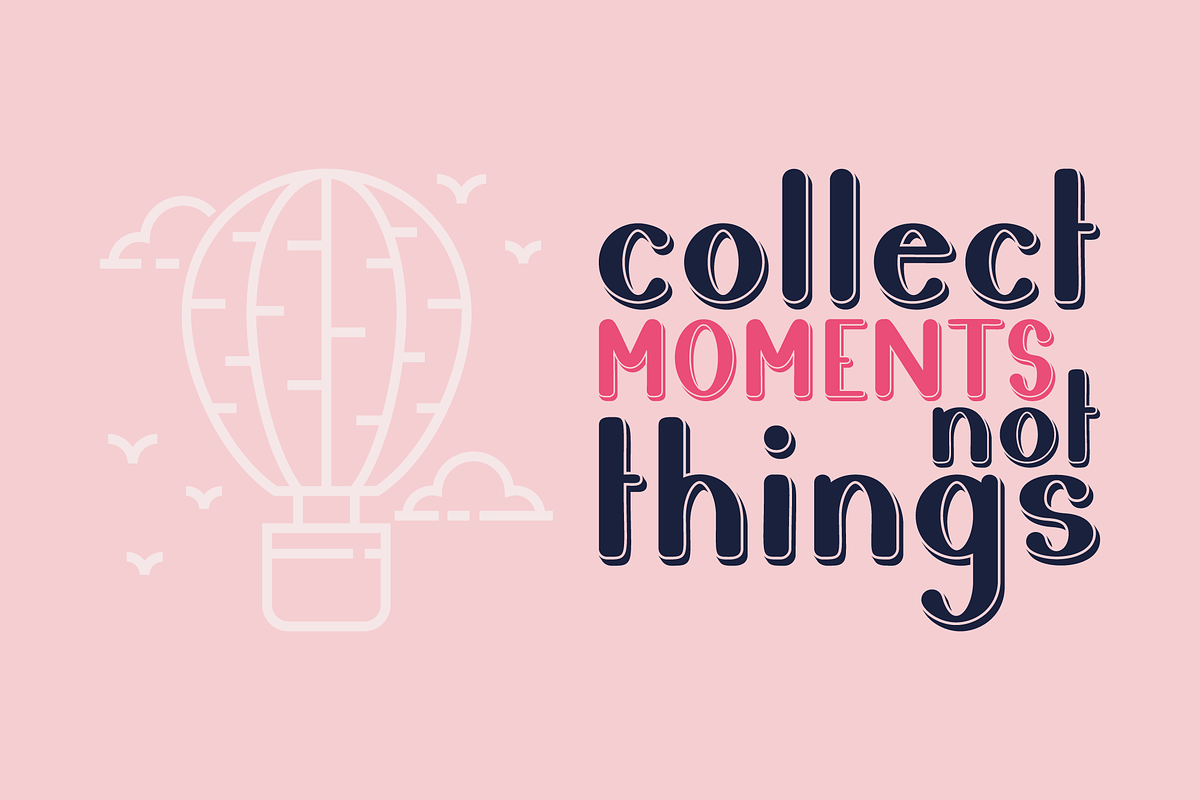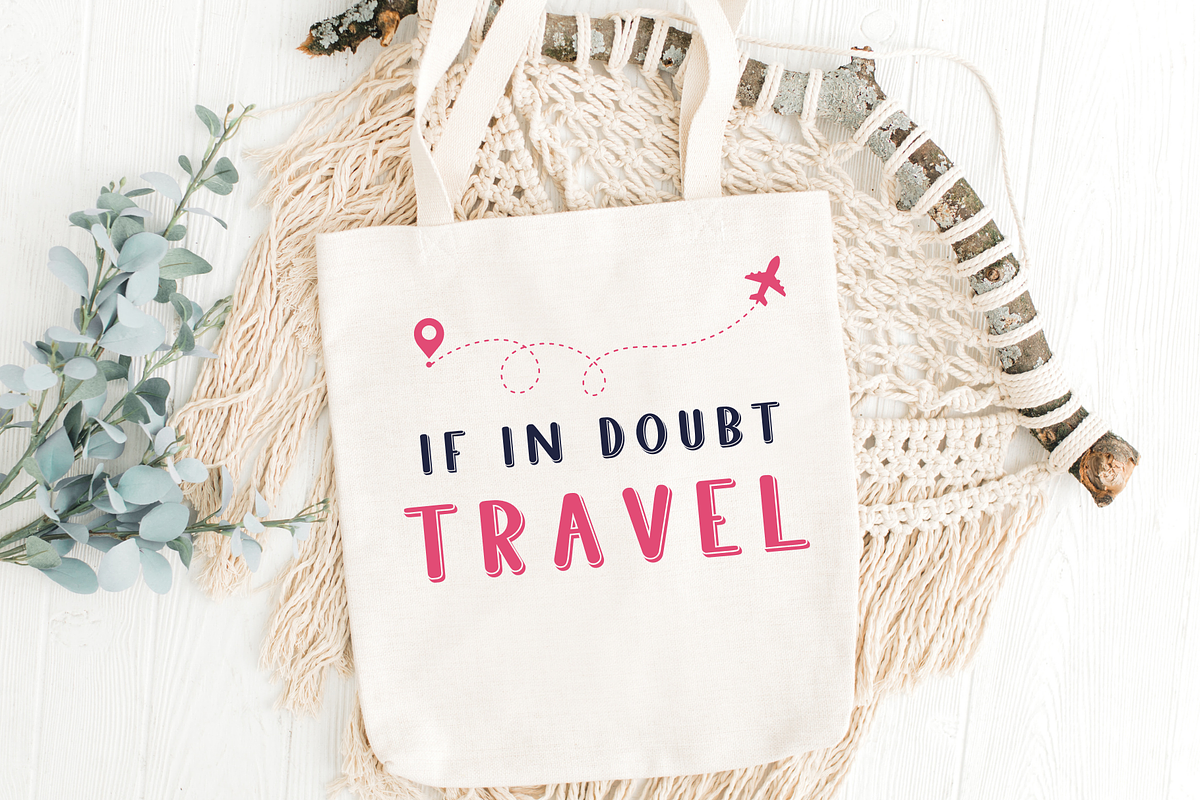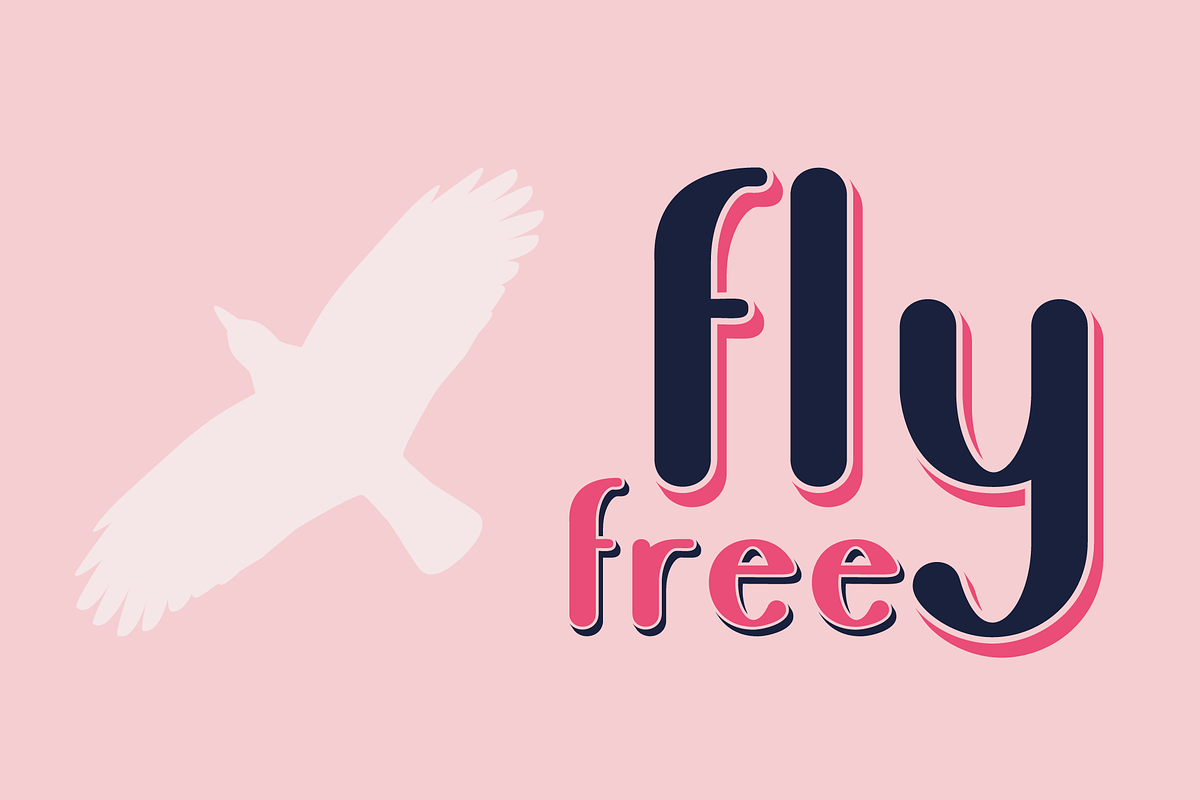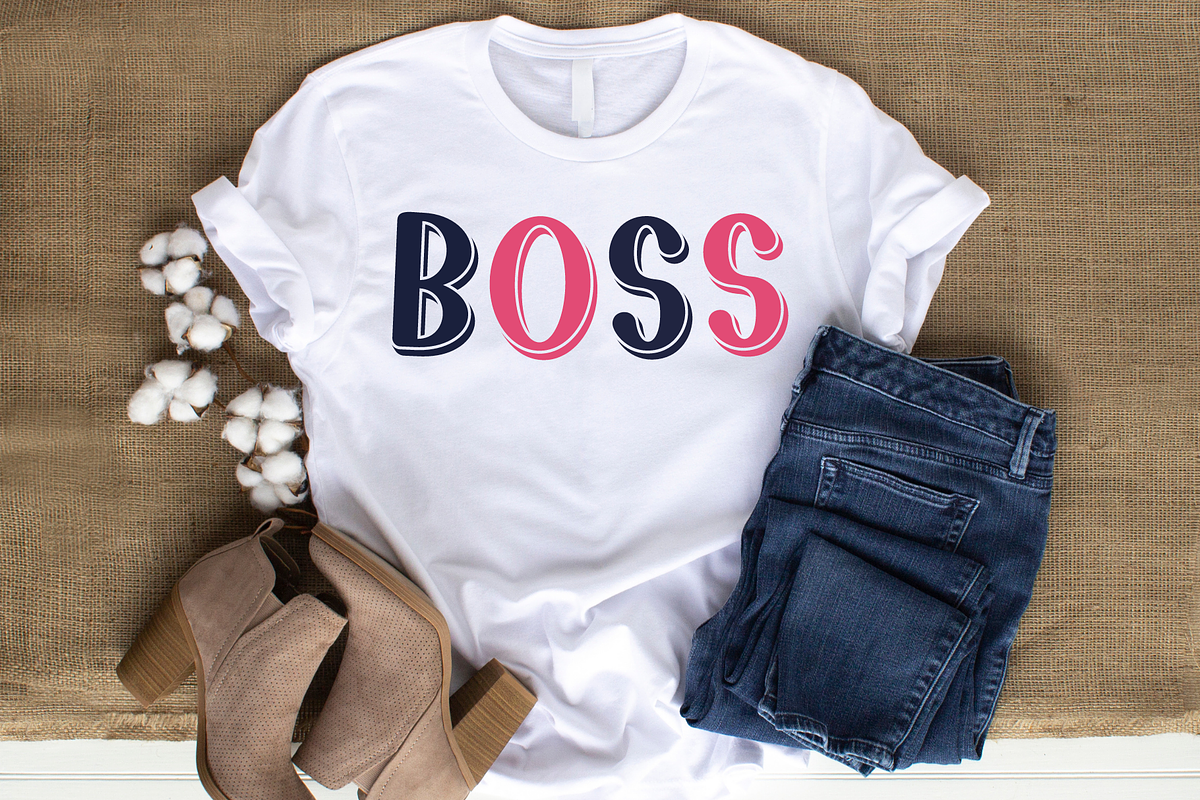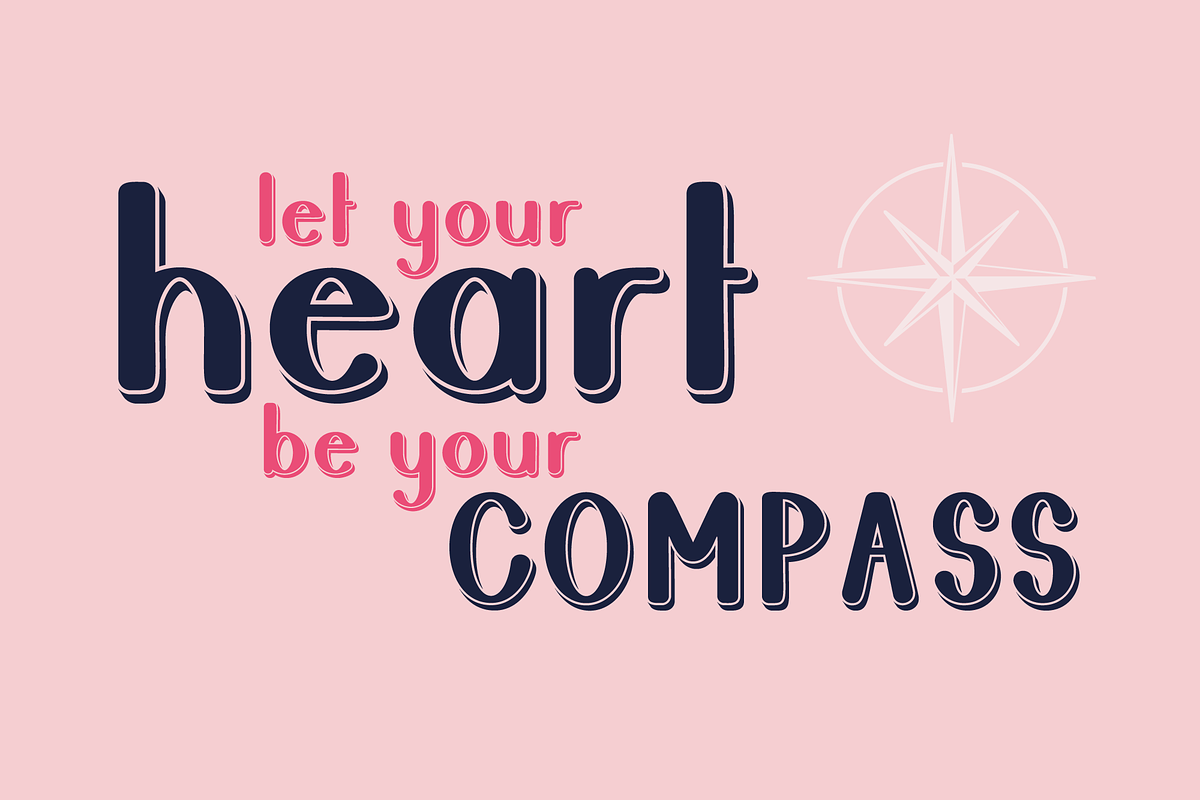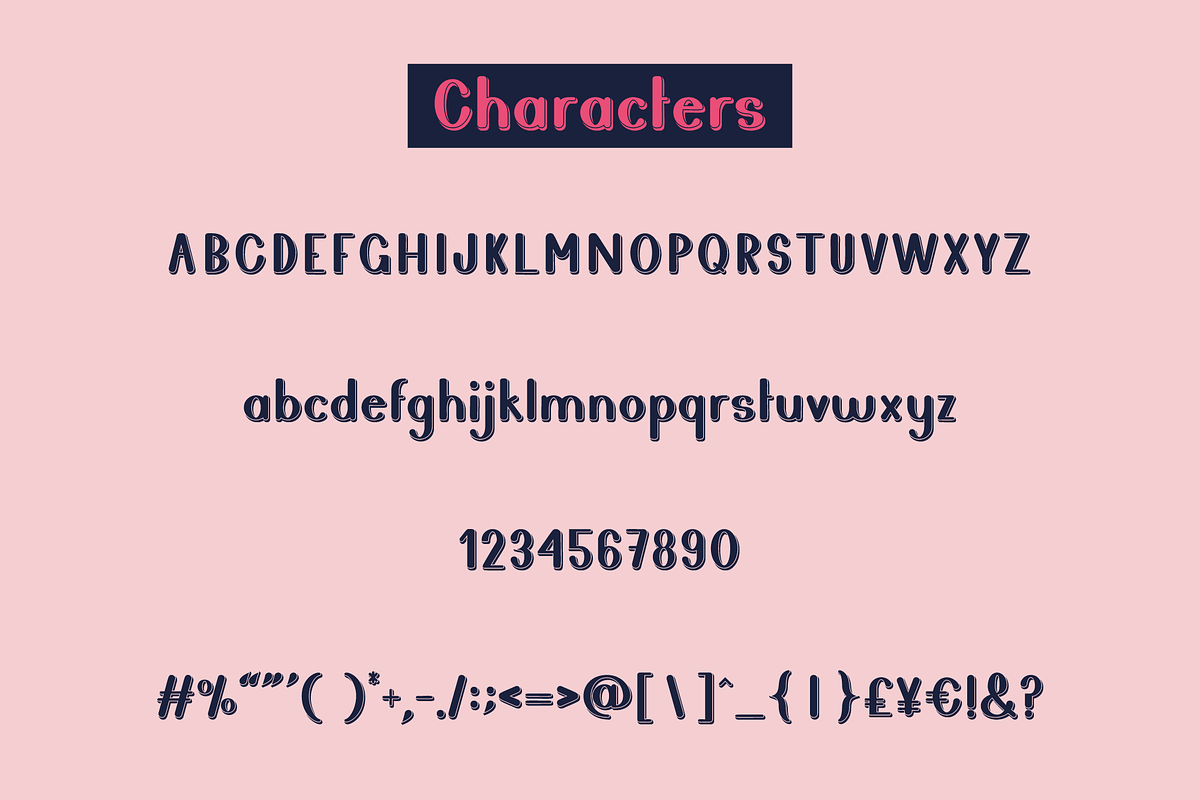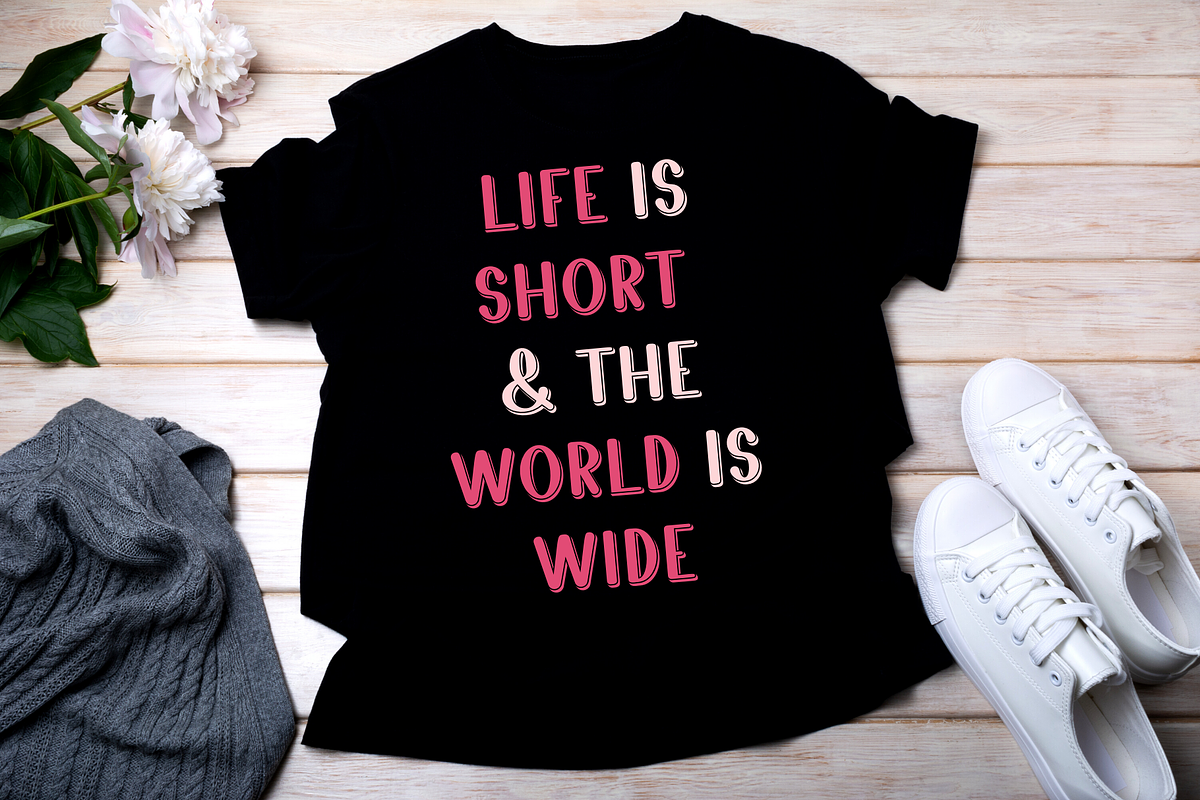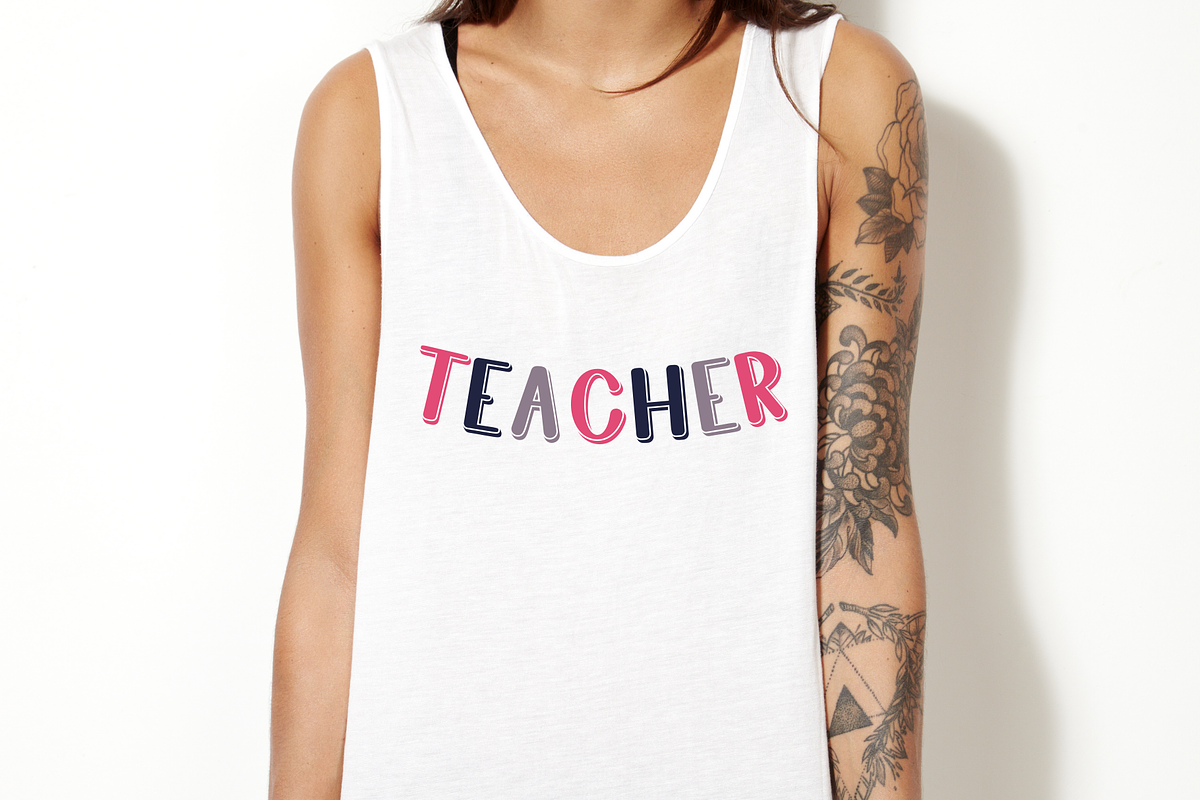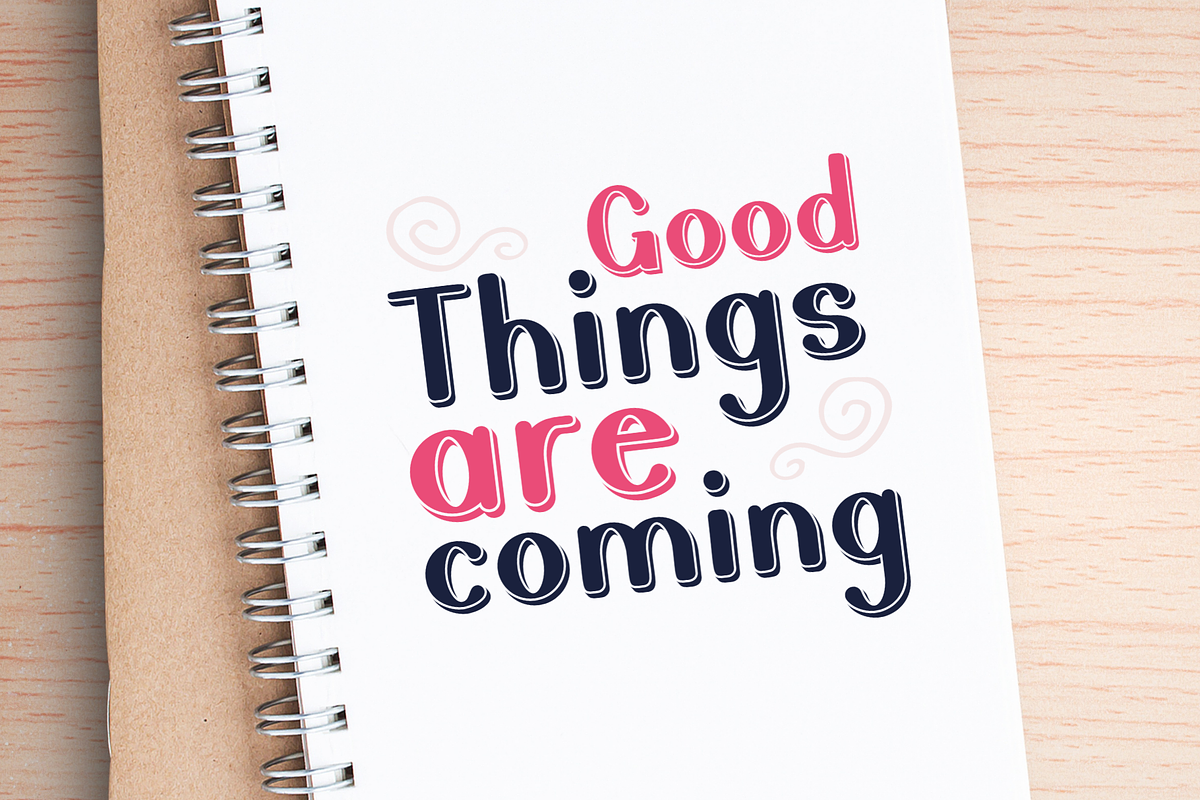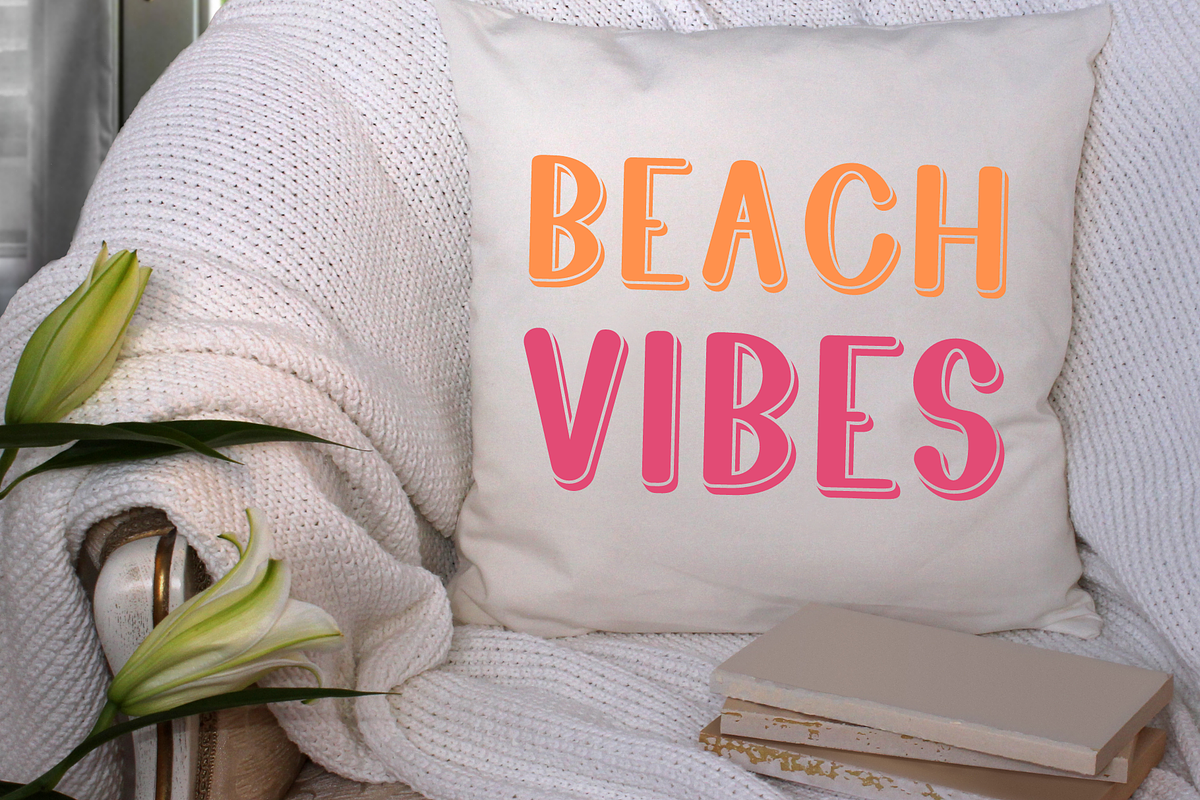
East Shadow Bold 3D Display Font
A bold 3D opentype font.
East Shadow is a bold 3D font with drop shadow design. Perfect for a wide range of styles and applications such as logo design, wedding invitations, business branding, & web design.